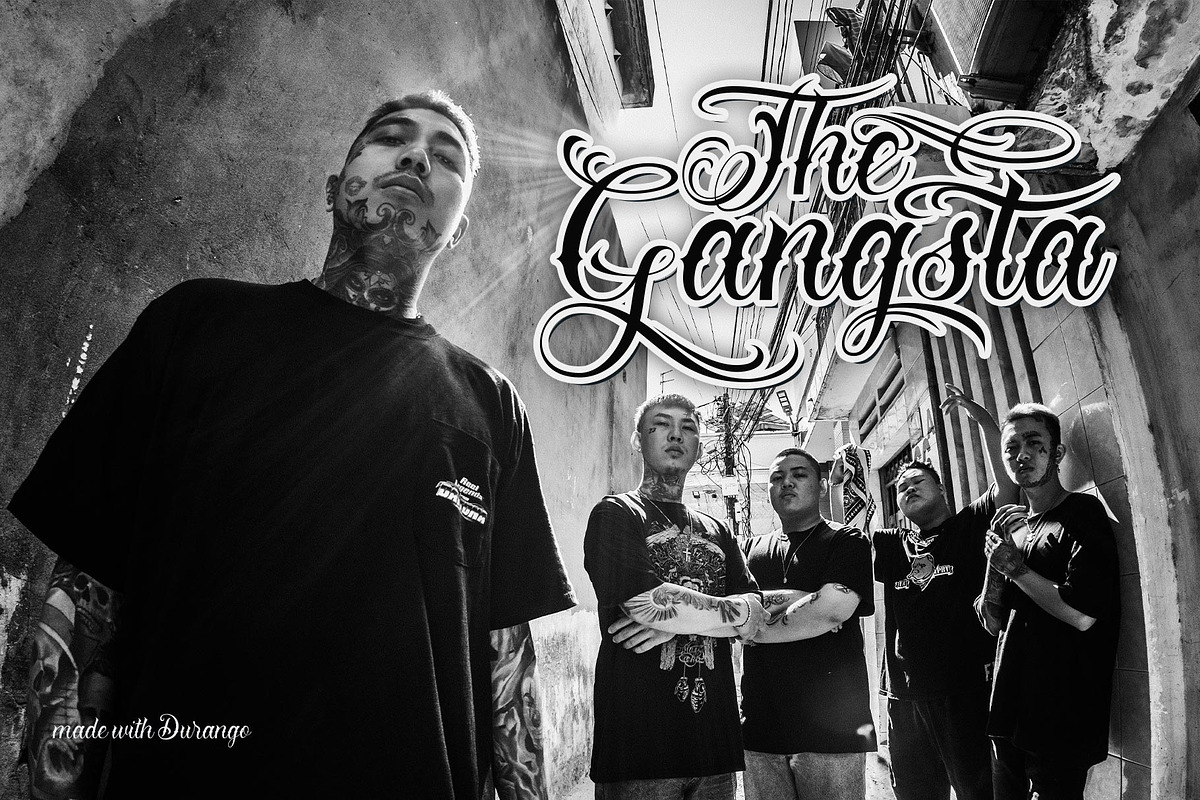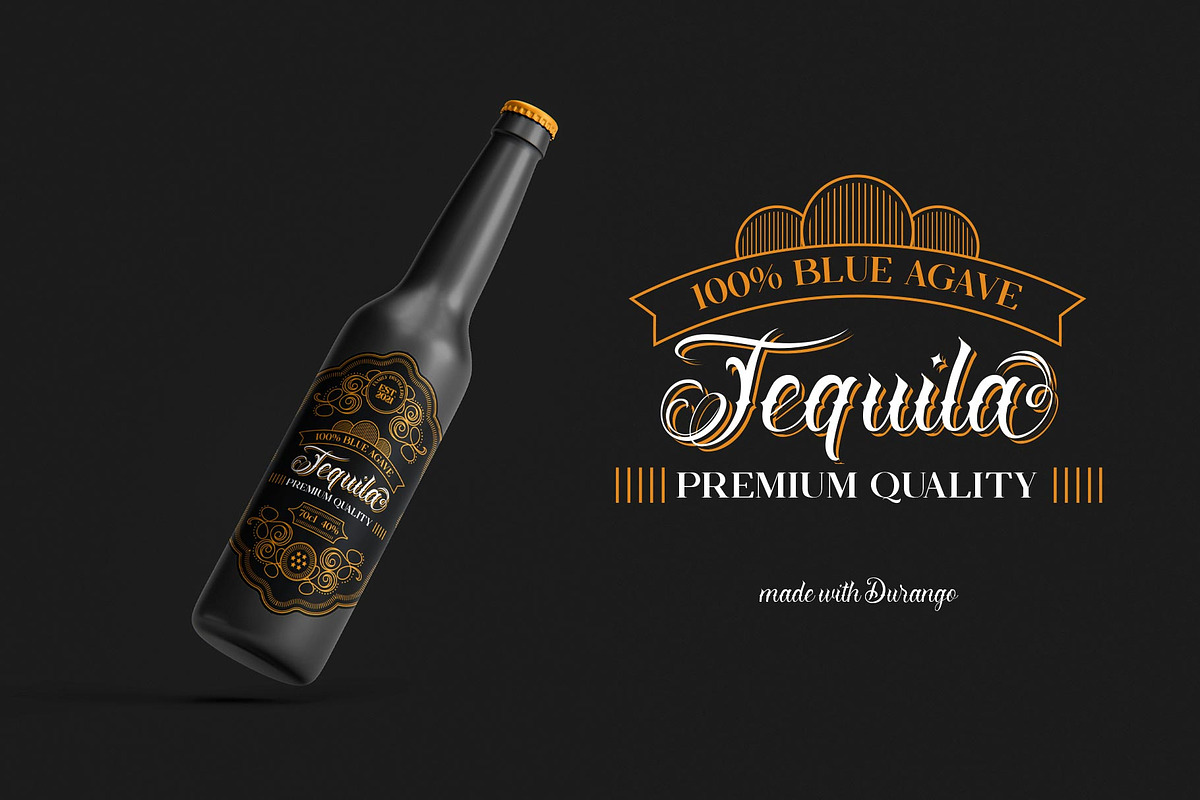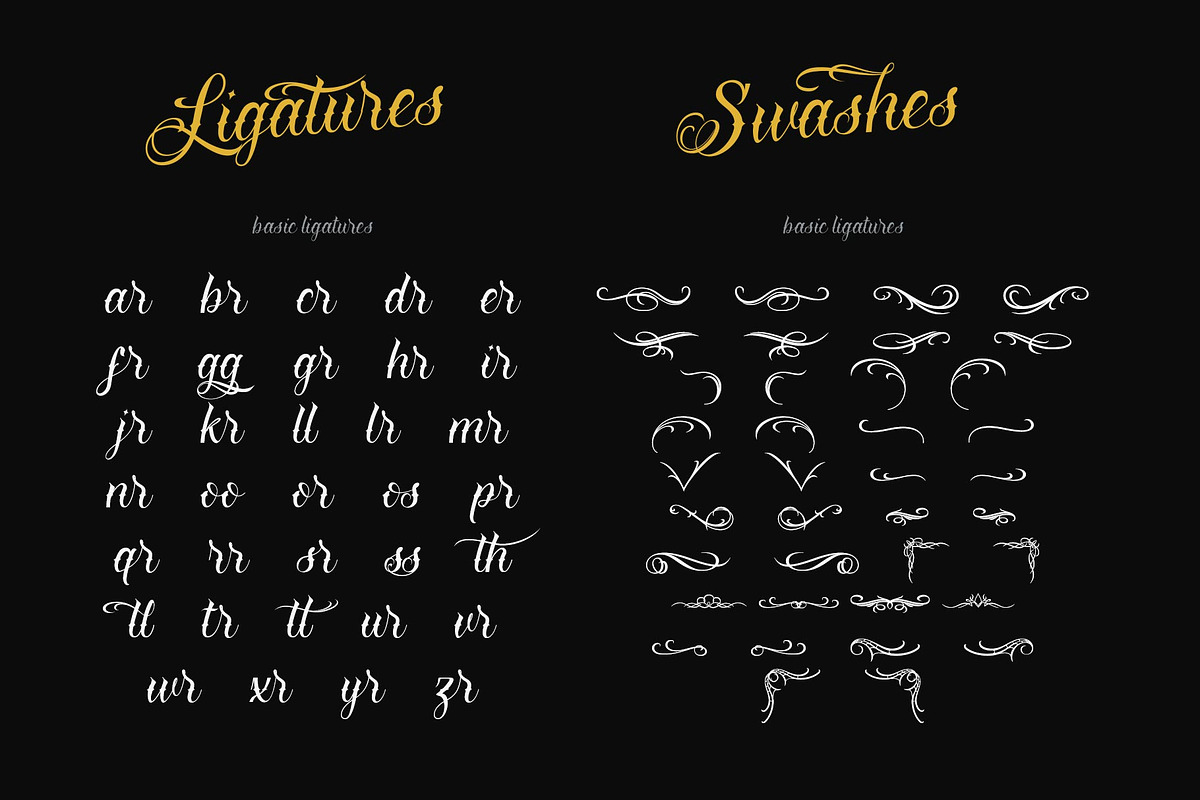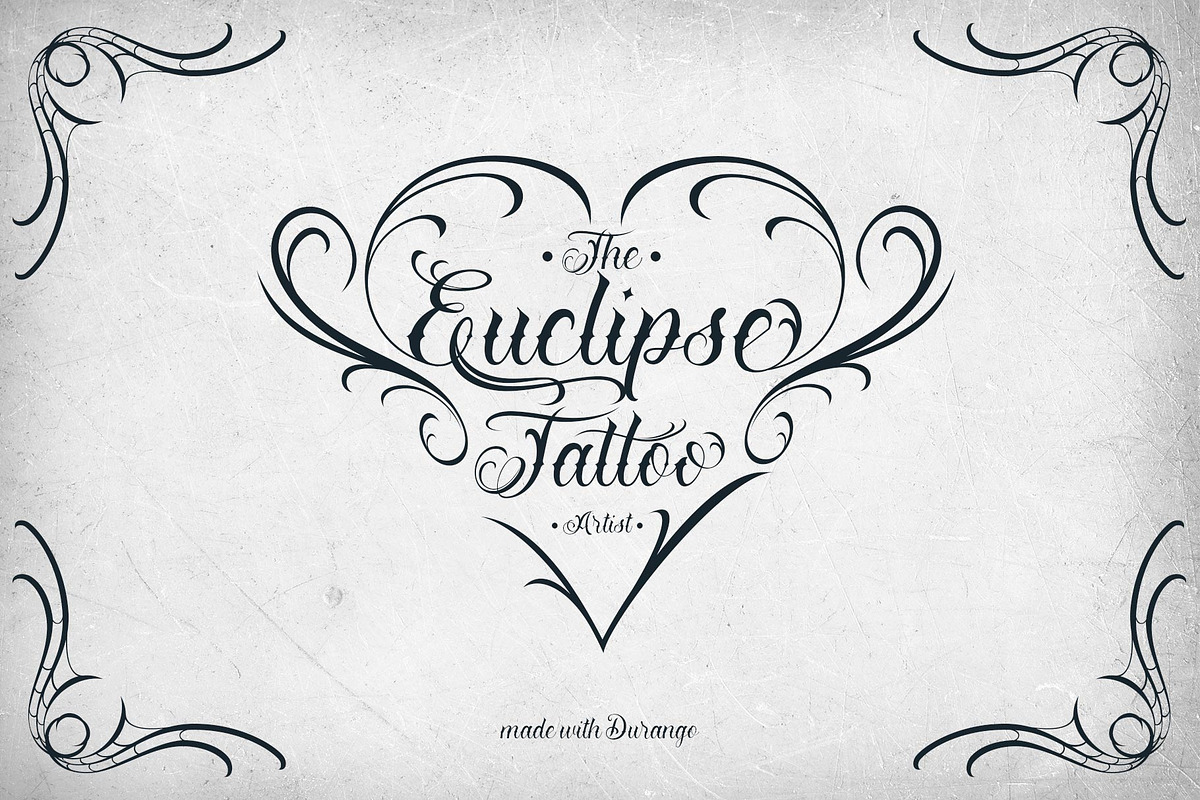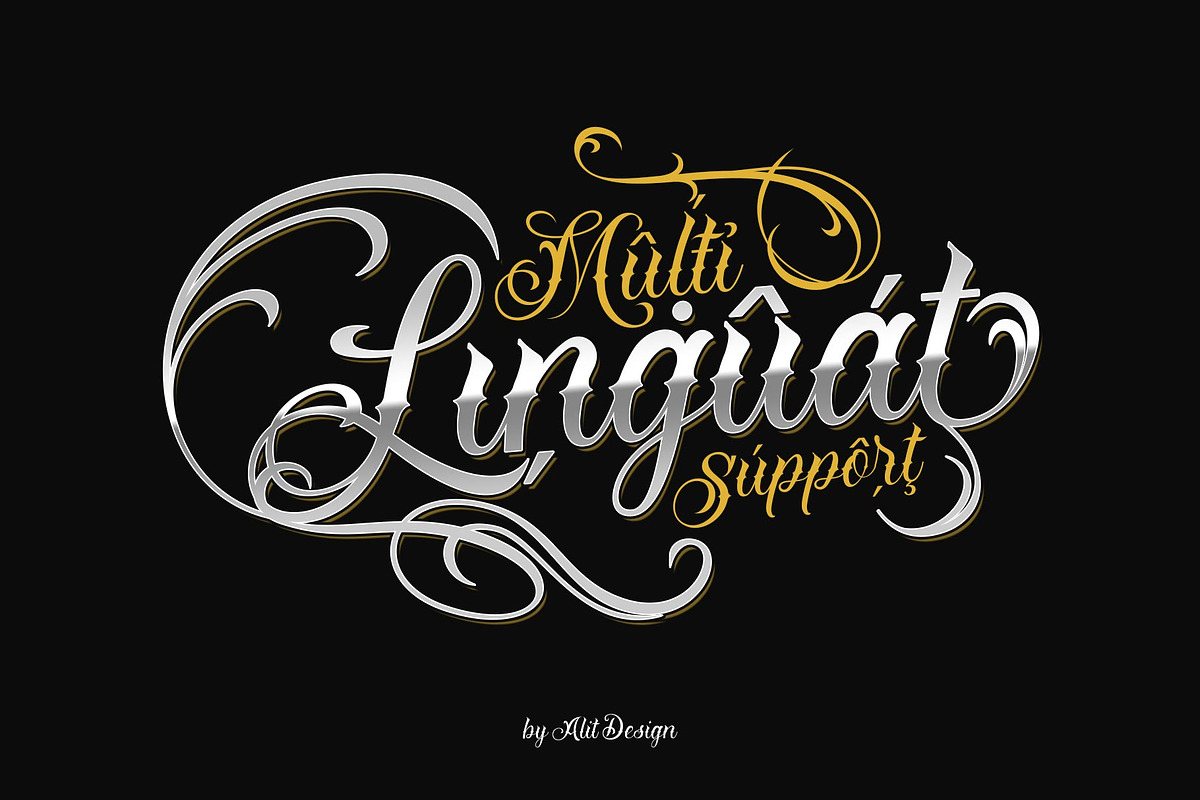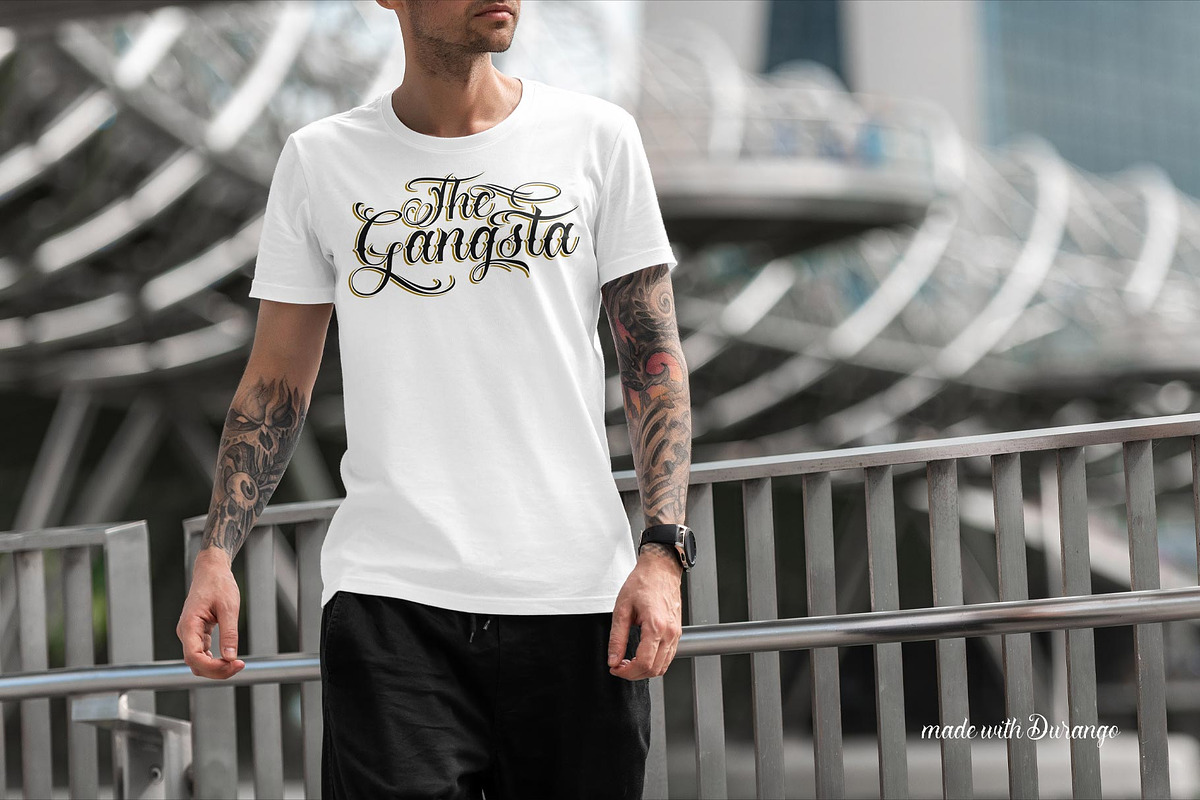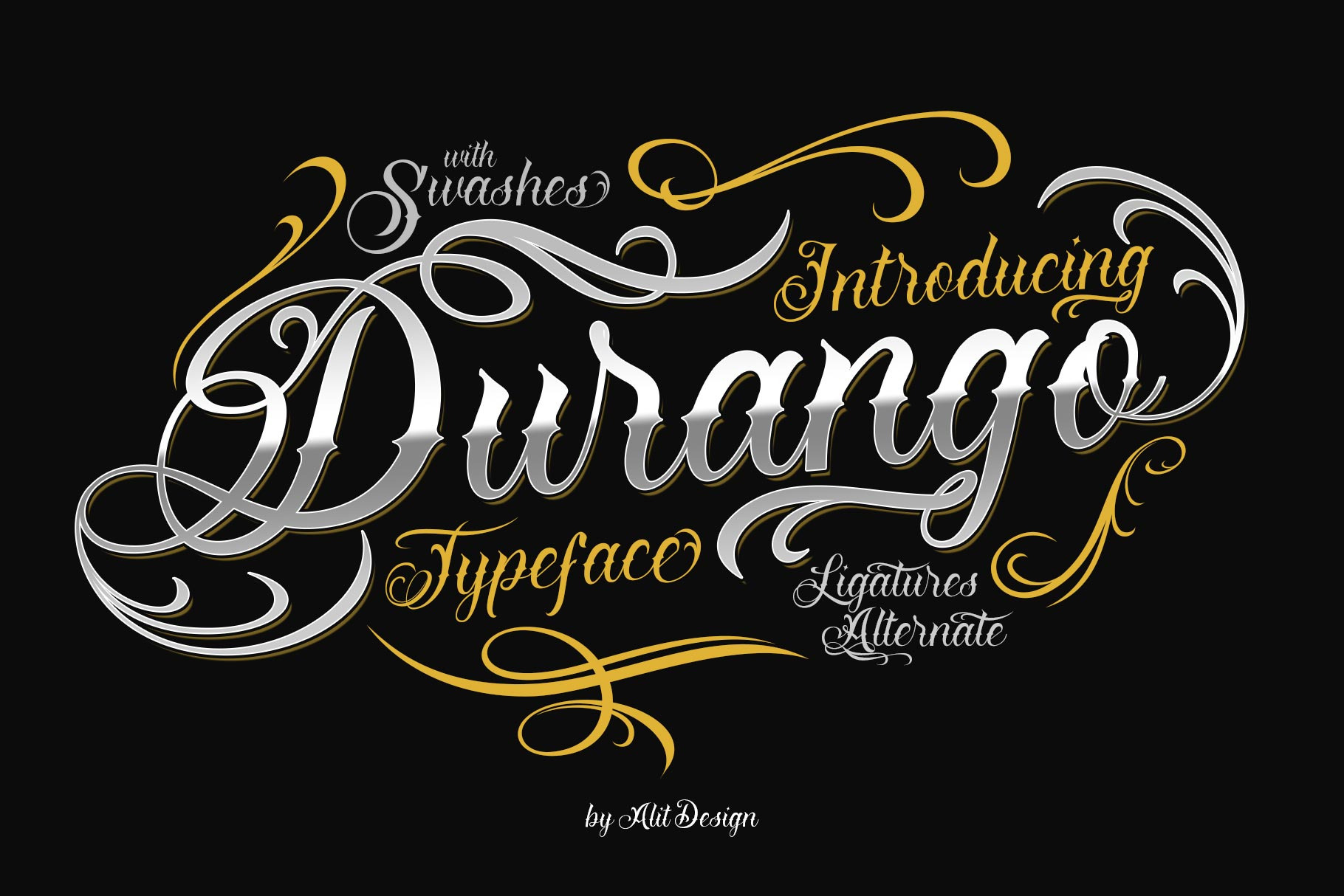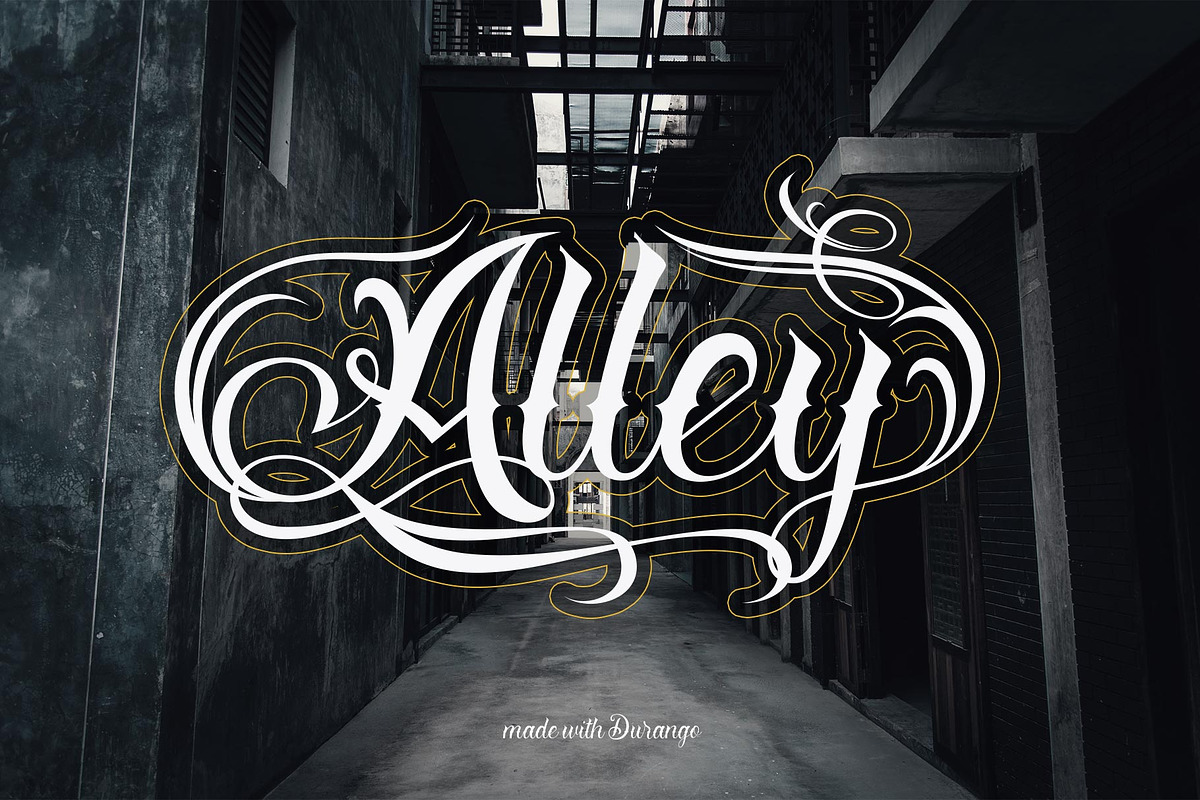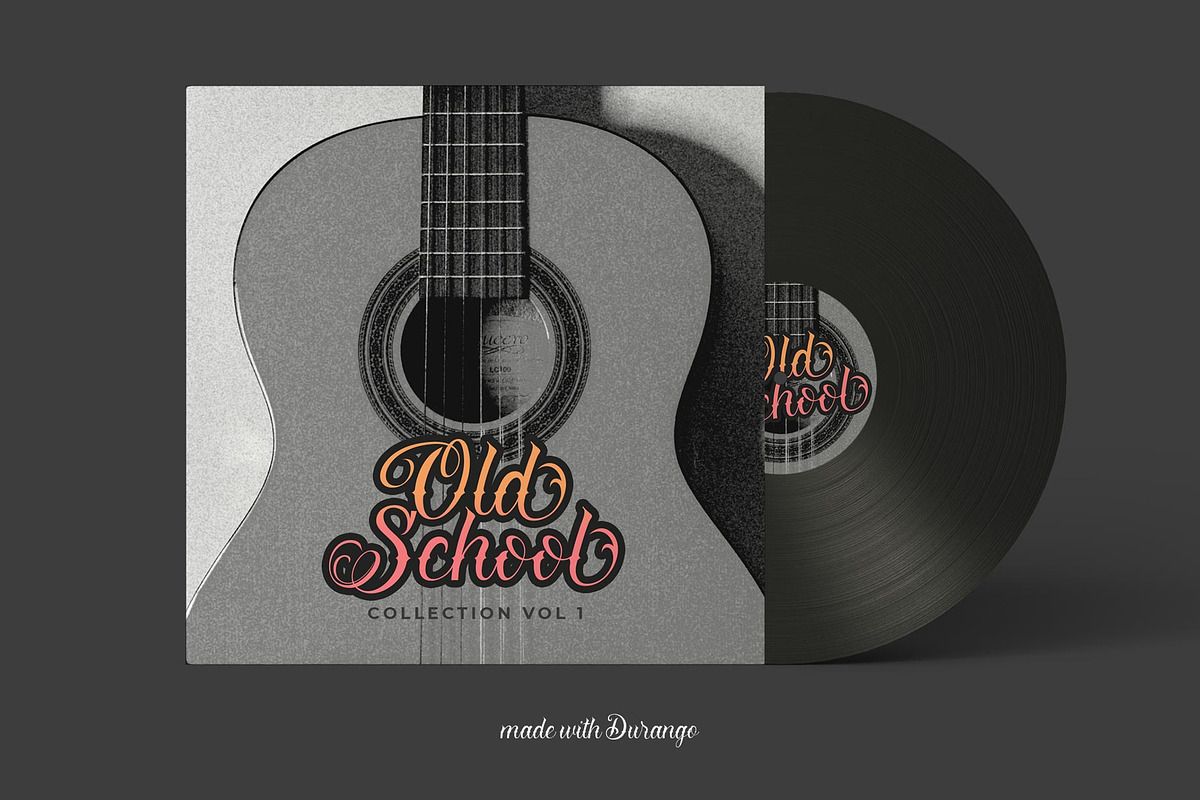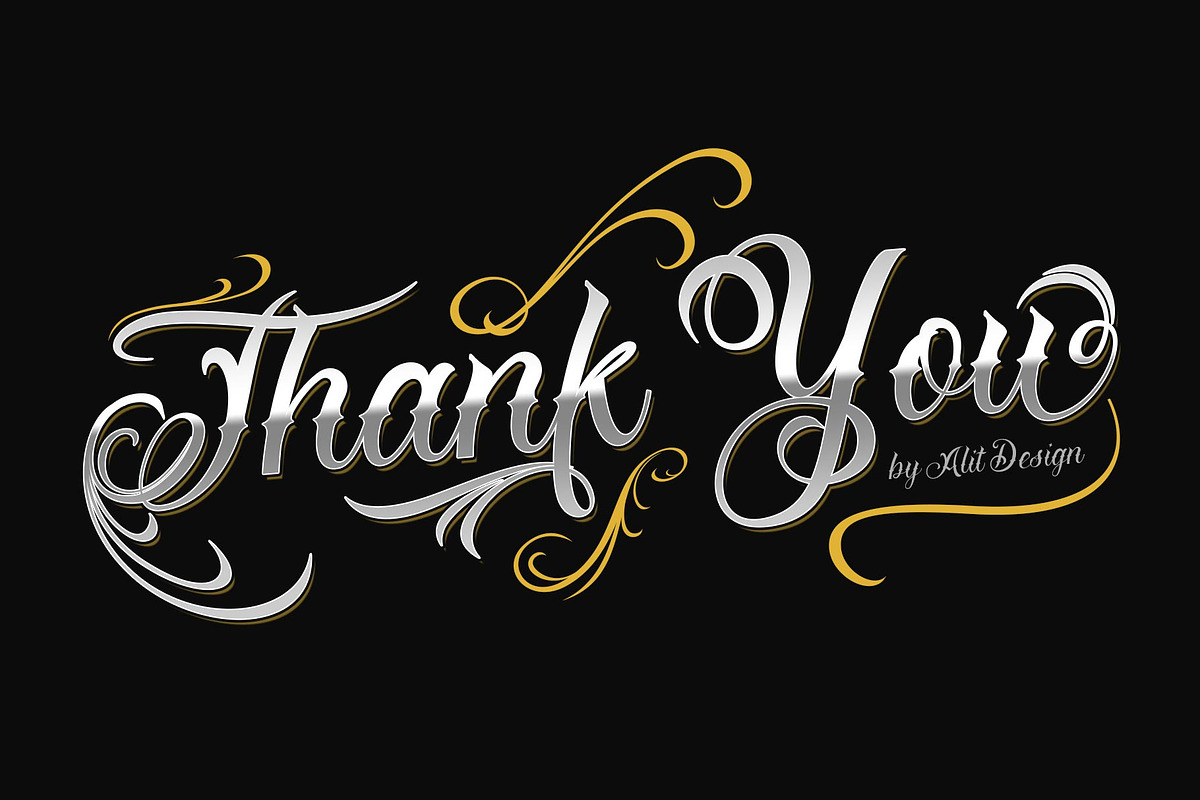
Durango Typeface
Introducing Durango Typeface
The Durango typeface is inspired by the tattoo script font style in the Mexican region. Bold, cool and synonymous with the style of bands or gangsters in Latin America. In addition to the Durango font, you also get a swash package that is very suitable to be combined with the Durango font, it can be seen on the Durango font preview poster for an example of using Swash with the Durango font.
Can be used for the design of alcoholic beverage packaging, pomade designs, barbershops and so on with the Victorian classic concept.